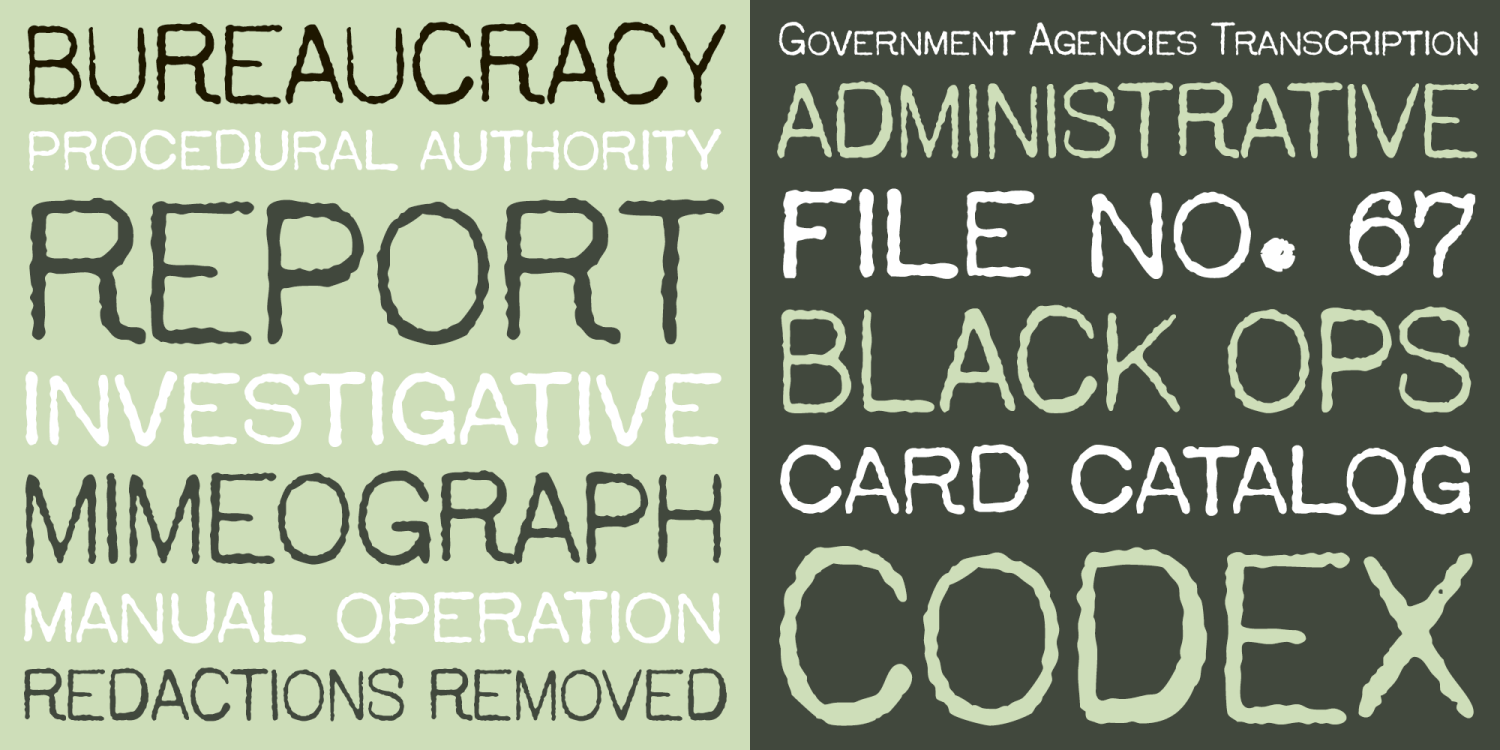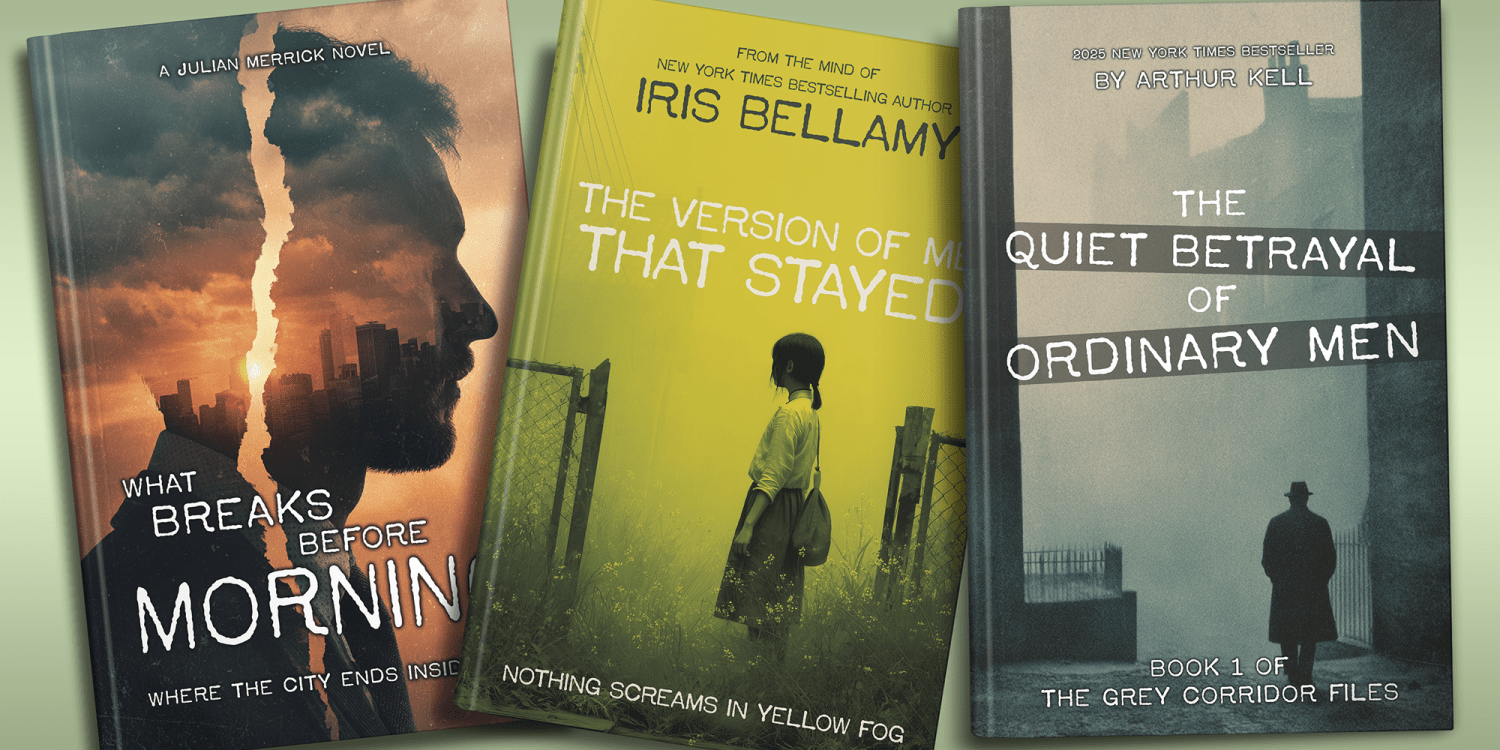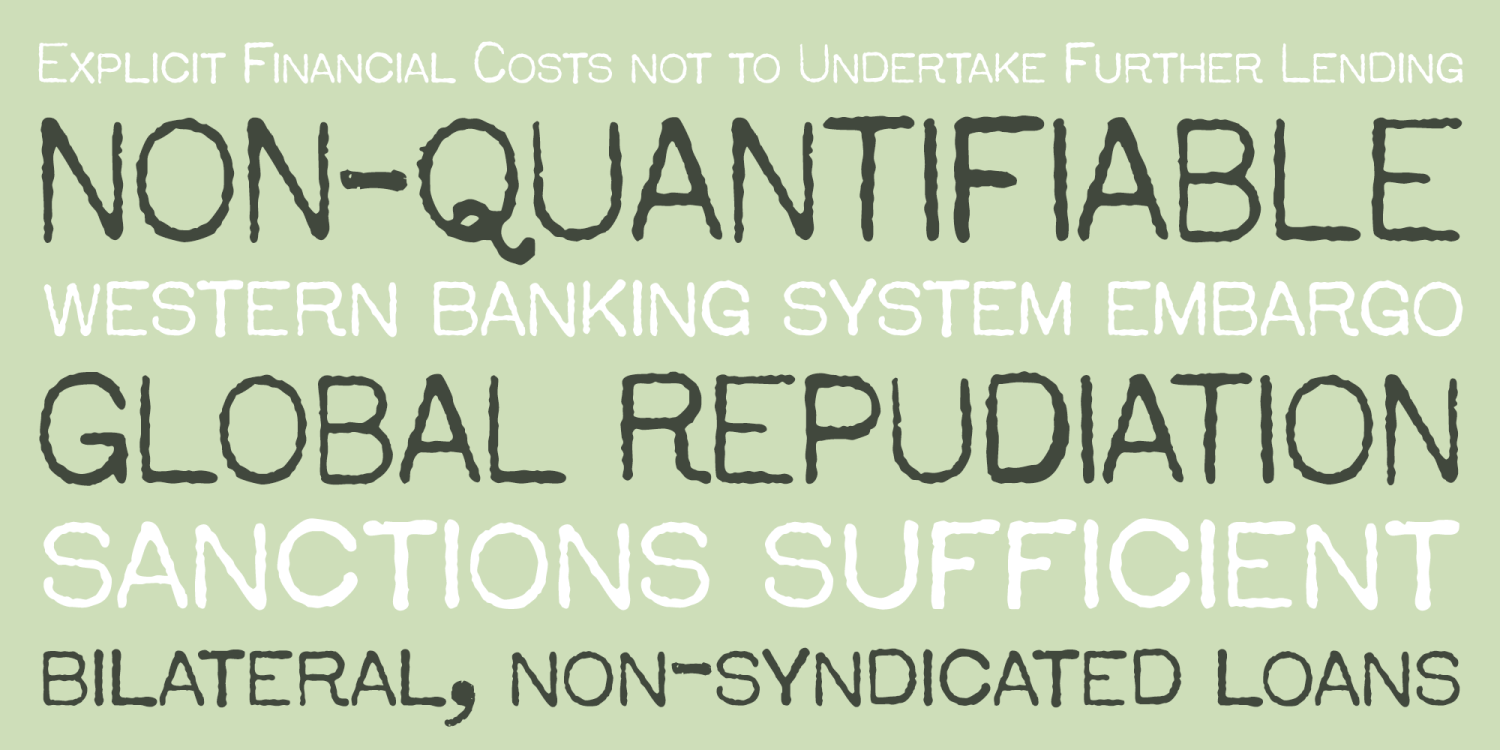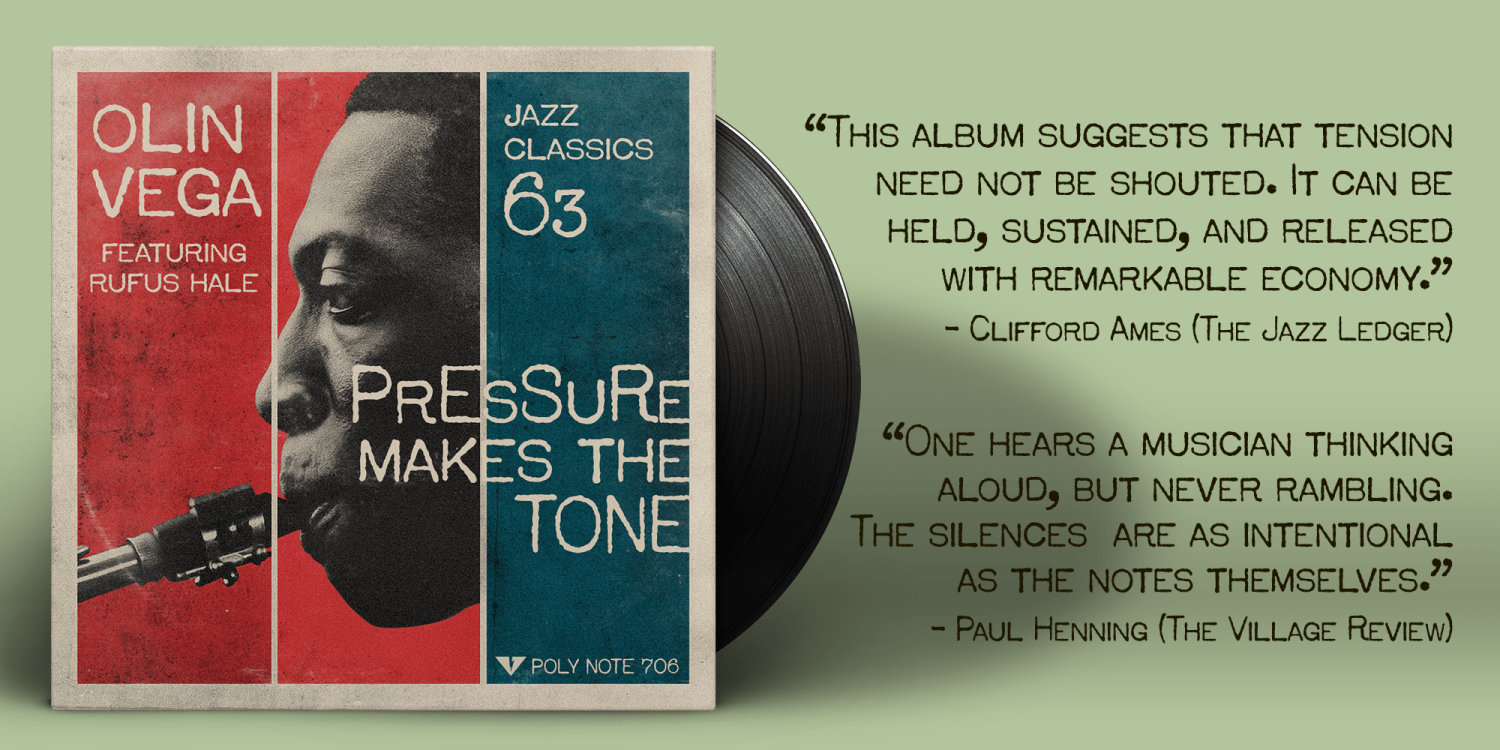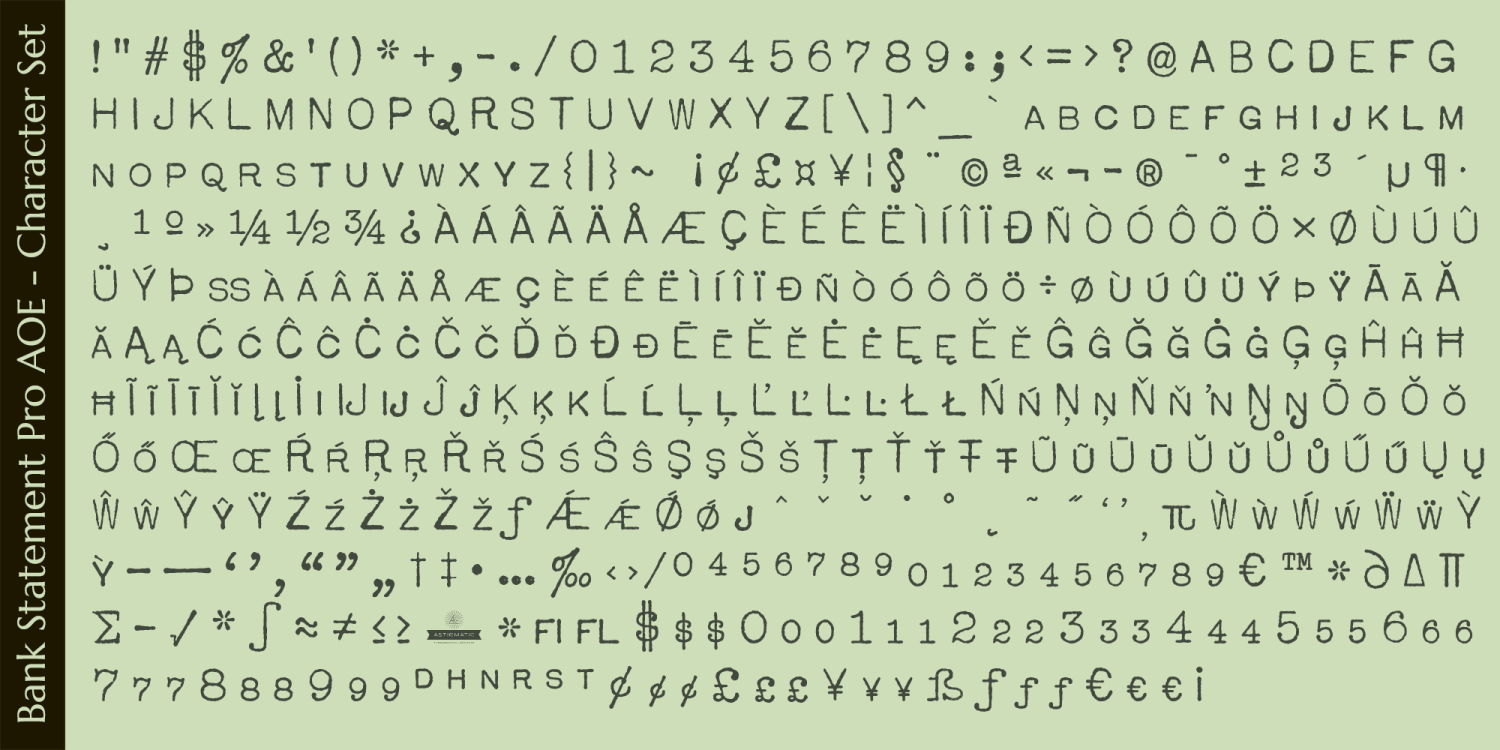
Bank Statement Pro AOE
Font Family by Astigmatic One Eye
ARCHIVAL RECORD — VINTAGE TYPEWRITER COLLECTION No. SCT–11
Repository of Archival and Administrative Lettering Arts
Bank Statement Pro AOE is a faithful reconstruction of lettering produced on a Smith & Corona typewriter, drawn directly from the mechanical imprint of a Pica Gothic Type No. 15 keyset. Each character preserves the subtle inconsistencies of impact, ink spread, and alignment that defined mid-century office correspondence, government memoranda, and institutional recordkeeping.
Designed with archival intent, the font carries the restrained authority of carbon copies, field reports, and typed forms filed away in steel cabinets. Slight irregularities in stroke weight and contour reflect the physical realities of typebars and ribbon wear, lending the face an unmistakably authentic texture without drifting into novelty or distortion.
This is not a decorative imitation, but a document-first typeface—meant to feel operational, procedural, and historically grounded. It performs best where credibility matters: dossiers, forms, transcripts, reports, and period-correct layouts that require the visual language of bureaucracy, investigation, and record preservation.
Ideal applications include archival branding systems, investigative dossiers, retro government aesthetics, period reconstructions, and narrative projects rooted in bureaucracy, research, and procedural authority. This is a font that reads as evidence: typed once, copied twice, stamped, and preserved for reference—long after its original author has left the room.